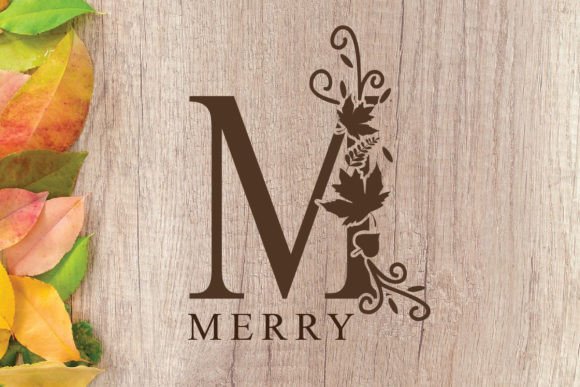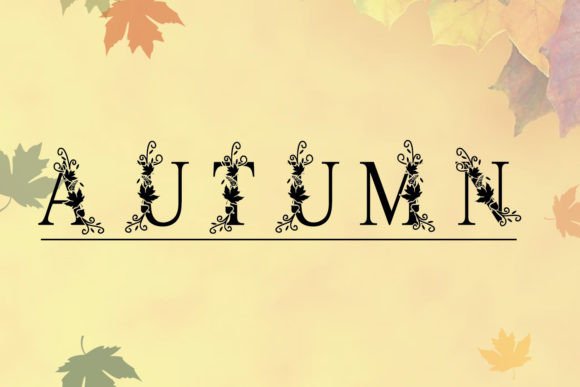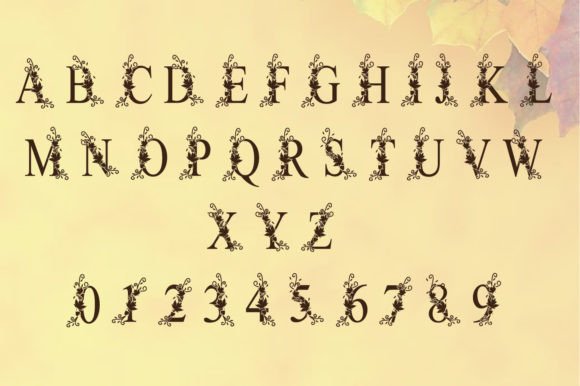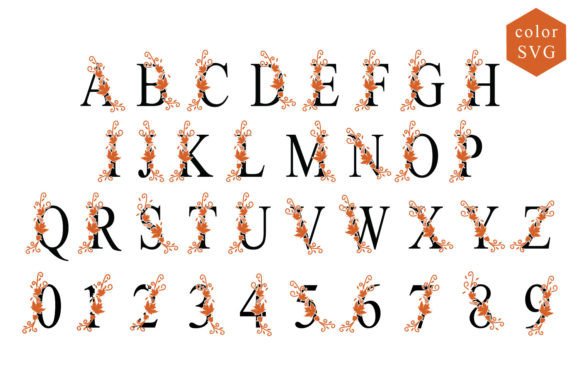
The Perfect Font for Your Autumn Designs: A Deep Dive into Autumn Monogram
As designers, crafters, and creative hobbyists, we’ve all been there – stuck on a project, searching for that one special font to bring our vision to life. I still remember working on a fall-themed invitation for a friend’s wedding, determined to create something truly magical. The problem was, I just couldn’t find the right font to capture the essence of the season. That was until I stumbled upon the stunning Autumn Monogram Font. ✨
An Honest Review of Autumn Monogram
So, what makes Autumn Monogram so special? Let’s dive into the good stuff and, of course, a few quirks I’ve discovered along the way.
- ✅ Elegant and Stylish: Autumn Monogram boasts a gorgeous, decorative design perfect for adding a touch of sophistication to any autumn-themed project.
- ✅ Versatile: Whether you’re working on invitations, social media graphics, or even craft projects, this font adapts seamlessly to various design needs.
- ✅ Easy to Read: Despite its decorative nature, Autumn Monogram remains surprisingly legible, making it a great choice for both headings and body text.
- ✨ OpenType Features: This font comes with a range of OpenType features, including glyphs and stylistic alternates, allowing for endless customization possibilities.
While Autumn Monogram is an incredible font, there are a few minor things to keep in mind:
- ⚠️ Limited Use in Body Text: Due to its decorative nature, Autumn Monogram might not be the best choice for lengthy body text. It’s perfect for headings, titles, and short paragraphs, though!
- 🤔 Requires Some Exploration: With a font as feature-rich as Autumn Monogram, it might take some time to get familiar with all the available glyphs and alternates. But trust me, it’s worth the exploration!
The Designer Inspiration Behind Autumn Monogram
While the true story behind Autumn Monogram’s creation might remain a mystery, it’s easy to imagine a designer, surrounded by fall leaves and warm lighting, pouring their heart into crafting a font that embodies the season’s magic. Perhaps they wanted to create a typeface that would make anyone feel like they’re sipping apple cider on a crisp autumn day. Whatever the inspiration, Autumn Monogram certainly captures the essence of fall in a stylish and elegant way.
| Font Name | Autumn Monogram Font |
| Author | susecreative |
| Does Autumn Monogram support OpenType features? | Yes, Autumn Monogram comes with a range of OpenType features, including glyphs and stylistic alternates, allowing for extensive customization. |
| Is Autumn Monogram difficult to read? | No, despite its decorative nature, Autumn Monogram is surprisingly legible and can be used for both headings and short paragraphs. |